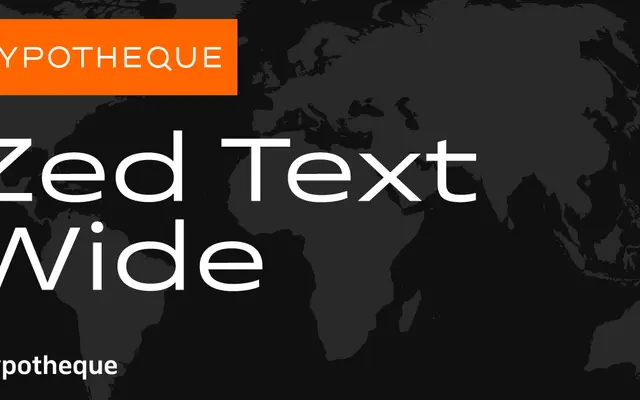
Zed Text Wide
A wide-set text subfamily within the vast Zed system, which spans compressed to extra-wide widths across display, round and text optical variants.
Zed Text Wide sits within one of the most expansive type systems offered by Typotheque, covering nine width variants from Extra-Compressed to Extra-Wide, each available in Display, Round and Text optical cuts. The Text Wide cut offers nine weights from Hairline to Black with matching slanted styles, tuned for reading at comfortable measure in wide-format settings. The scale of the system makes it suited to publications, wayfinding and identity work requiring consistent typographic voice across radically different spatial conditions.
Zed is a large type system with geometric construction across multiple widths and optical sizes; the Text Wide subfamily is optimised for body text at a wider width setting, consistent with contemporary geometric sans design.